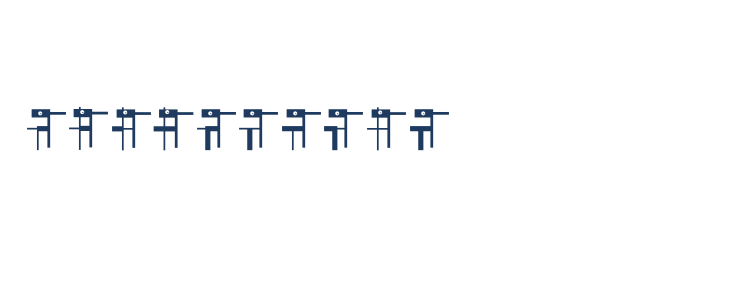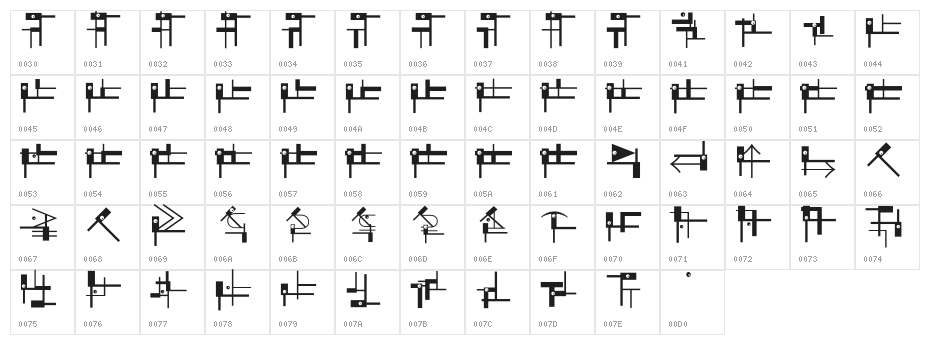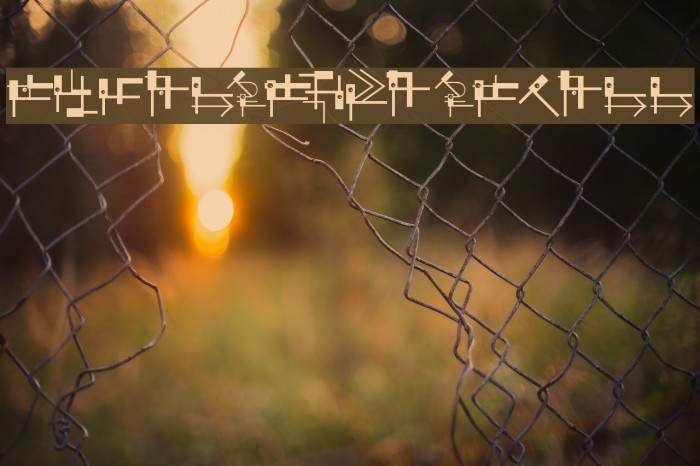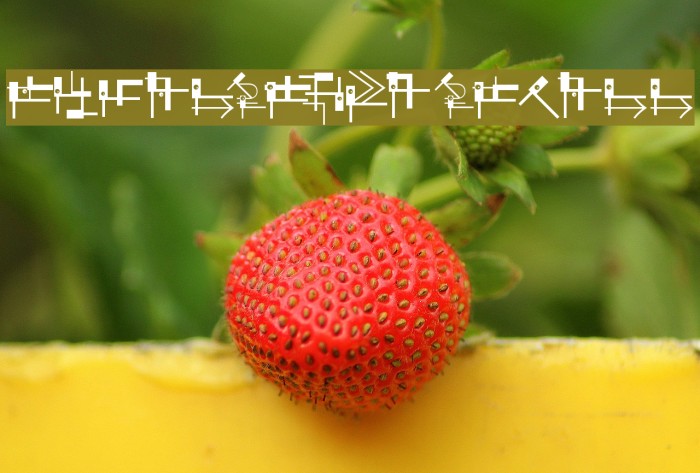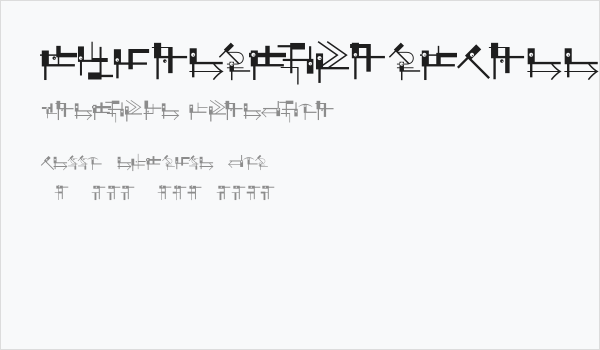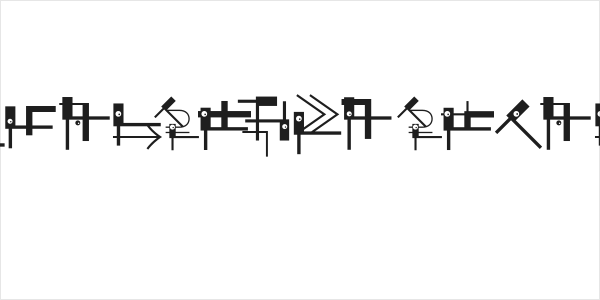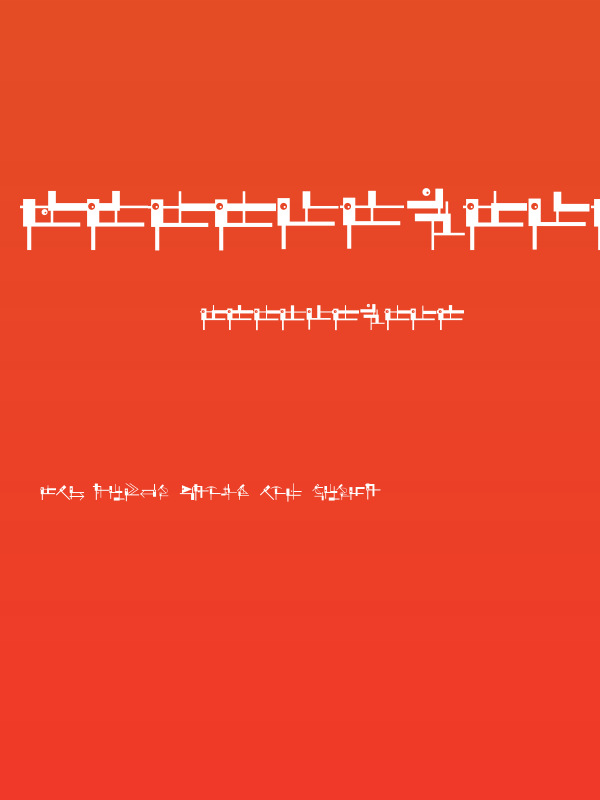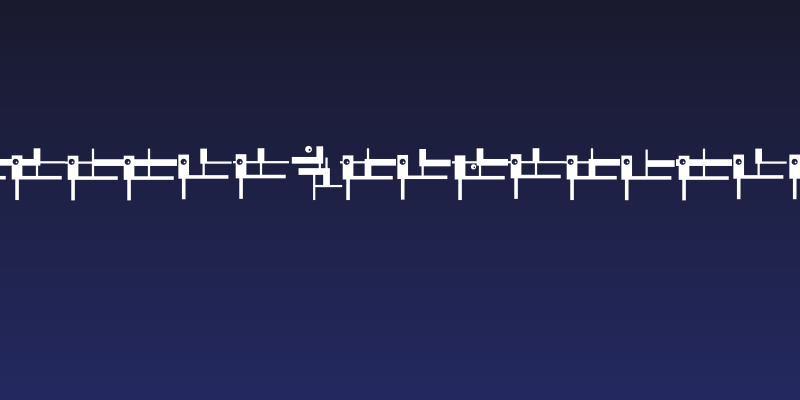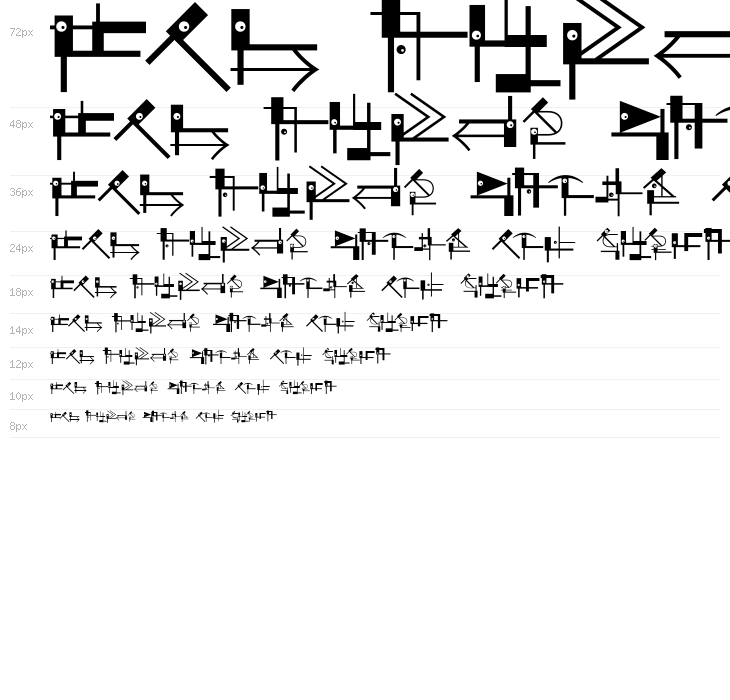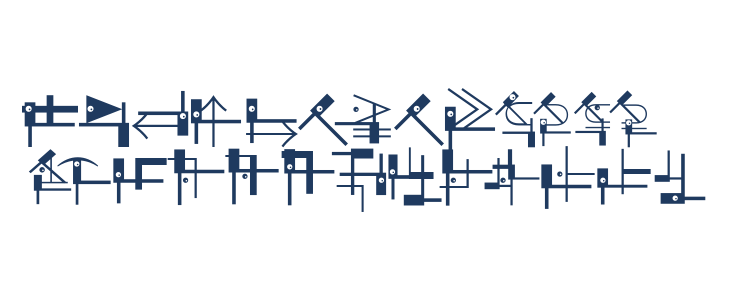
SuprematismThree Font
This font is a highly abstract and geometric typeface, drawing inspiration from the Suprematism art movement. It features bold, angular shapes and lines, creating a sense of movement and dynamism. The characters are constructed from a combination of rectangles, circles, and lines, giving it a distinctly modern and avant-garde appearance. The font lacks traditional letterforms, instead opting for a more artistic and interpretive representation of characters. This makes it ideal for creative projects that require a unique and unconventional aesthetic.
| Use Case | Logos, Posters, Art projects |
| Proposed Projects | Ideal for art installations, modern art exhibitions, avant-garde posters, and experimental design projects. |